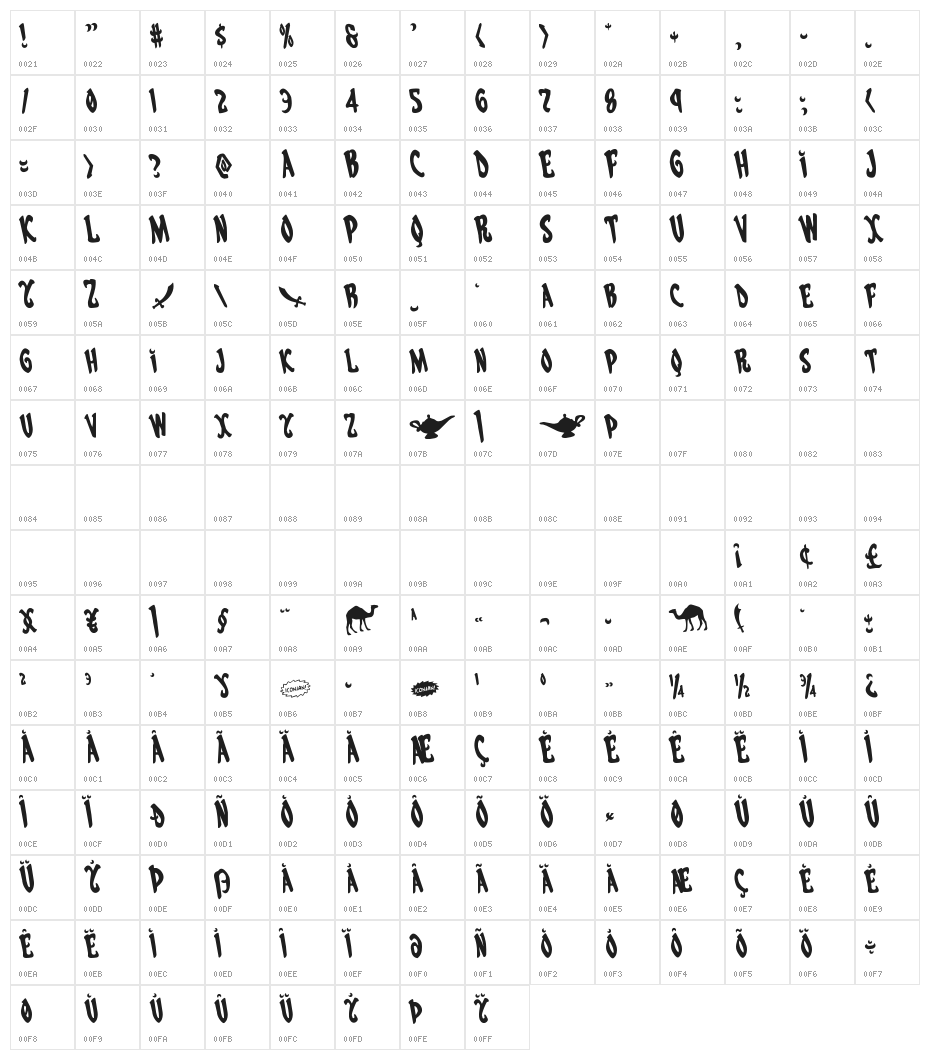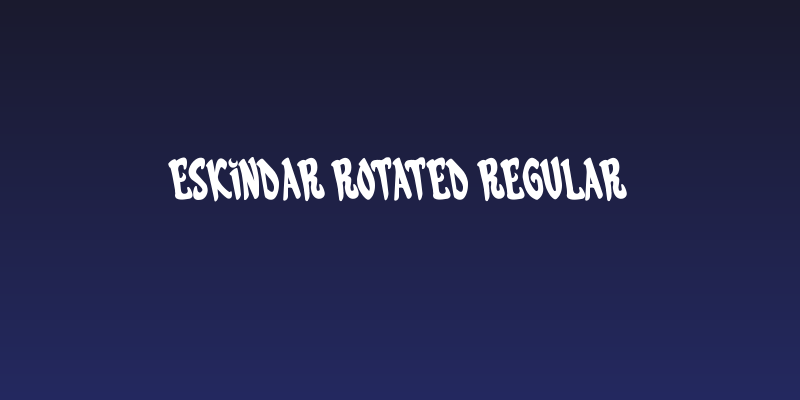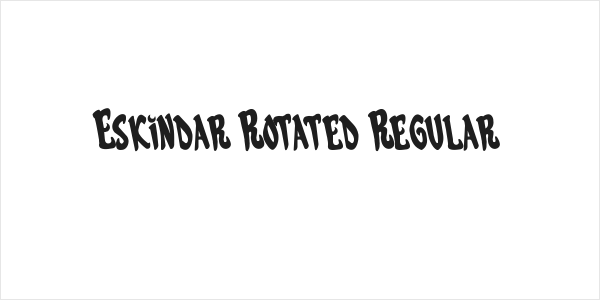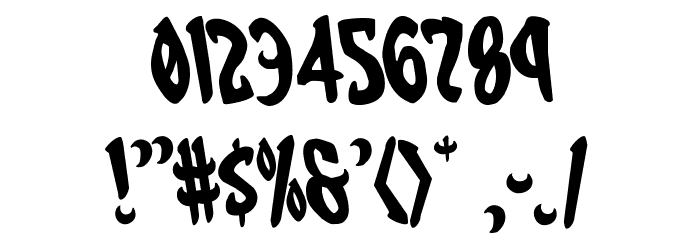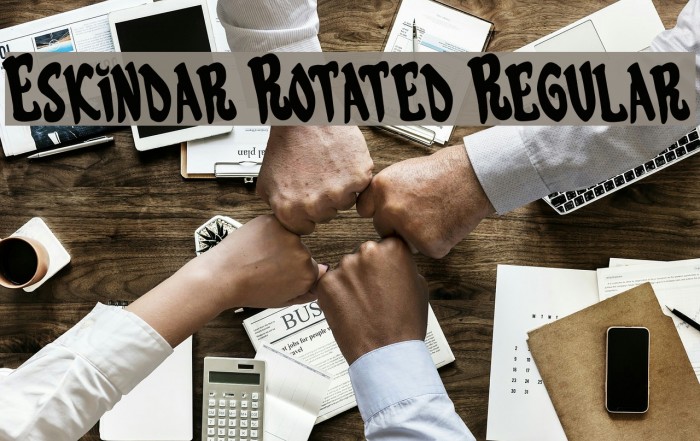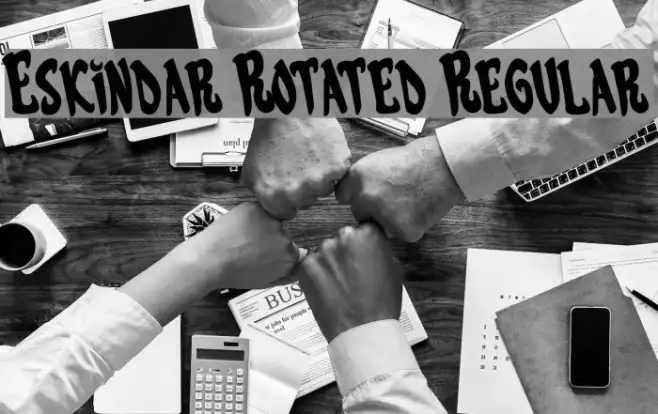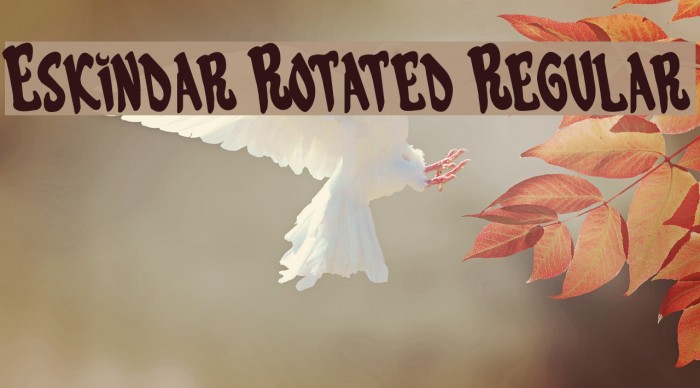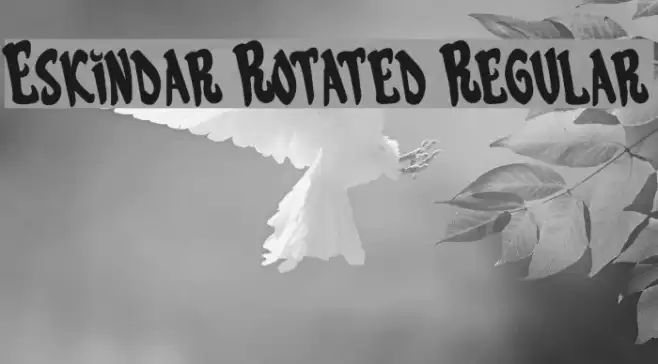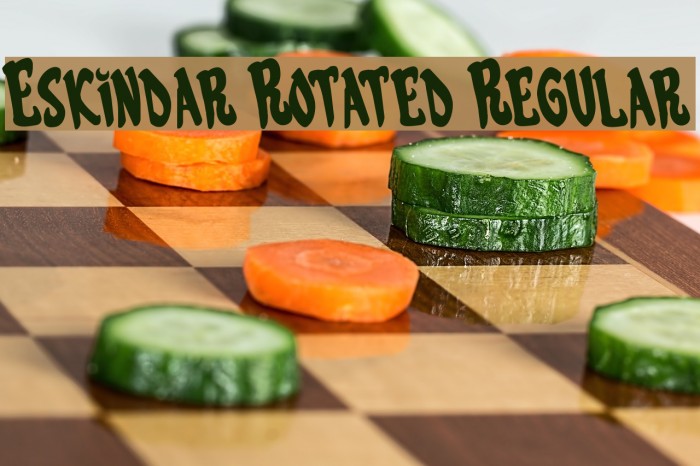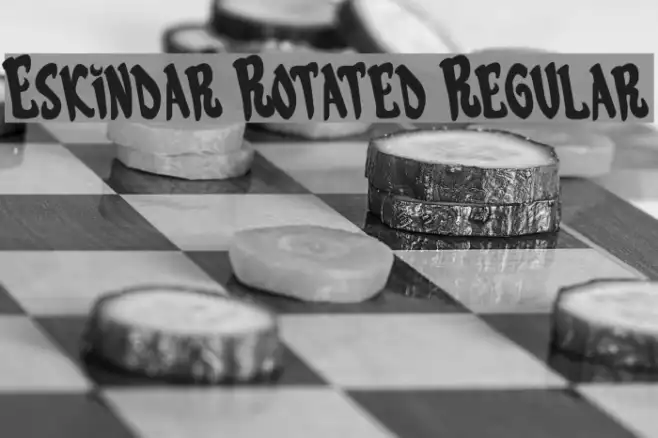
Eskindar Rotated Regular Font
Eskindar Rotated Regular Description
This font exhibits a playful and dynamic style with a unique, hand-drawn appearance. The letters are bold and slightly irregular, giving them a whimsical and artistic feel. The strokes are thick and vary in width, adding to the font's lively character. The overall design is reminiscent of a cartoonish or comic style, making it stand out with its distinctive flair. The characters are slightly tilted, enhancing the sense of movement and energy. This font is perfect for projects that require a fun and engaging visual impact.